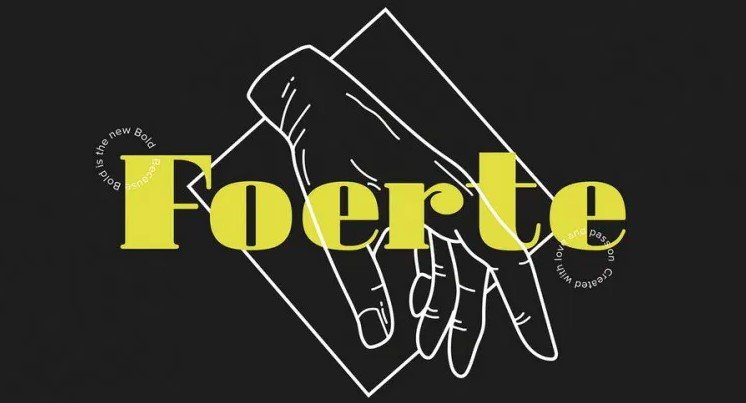
Hello beautiful and great designers, if you want to download and use bold, powerful, and attractive typeface then you must have to use Foerte Font which is capable of doing such great things just with its sharp edges characters.
Peoples like and attract where the most of the uniqueness comes from the designs this font will help you lot for doing designing of such kind pieces of stuff.
Yes You can use the Foerte Serif website on your website and can make your website design more beautiful.